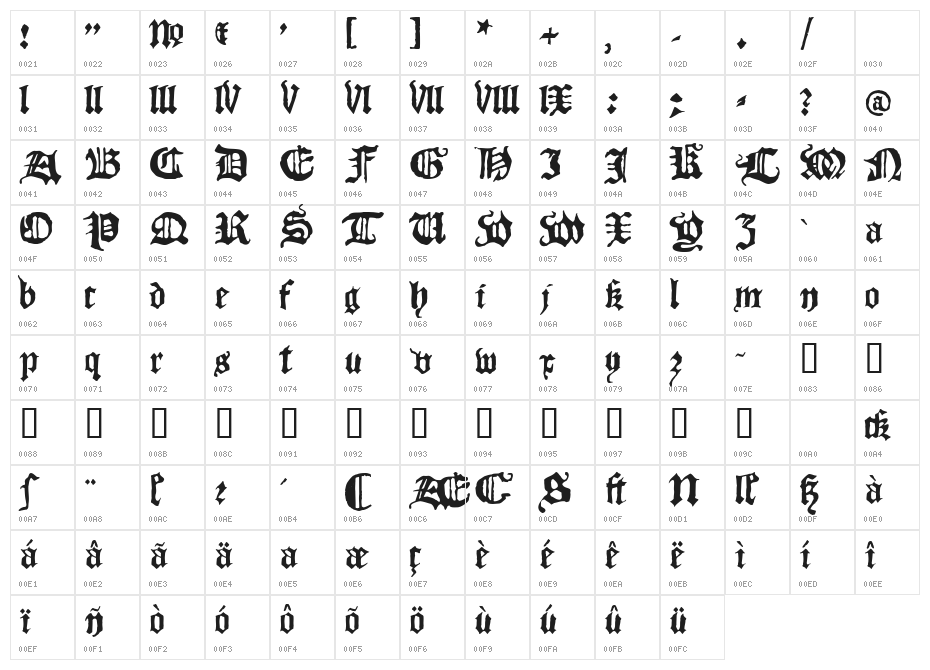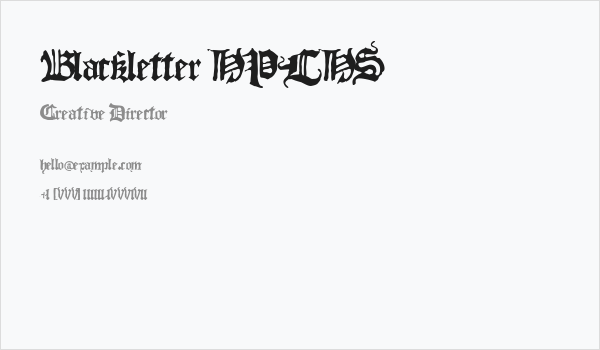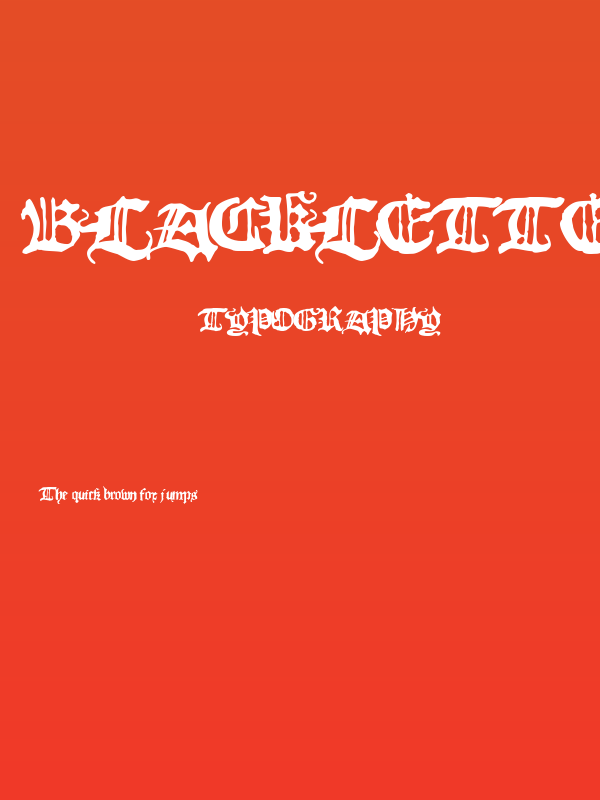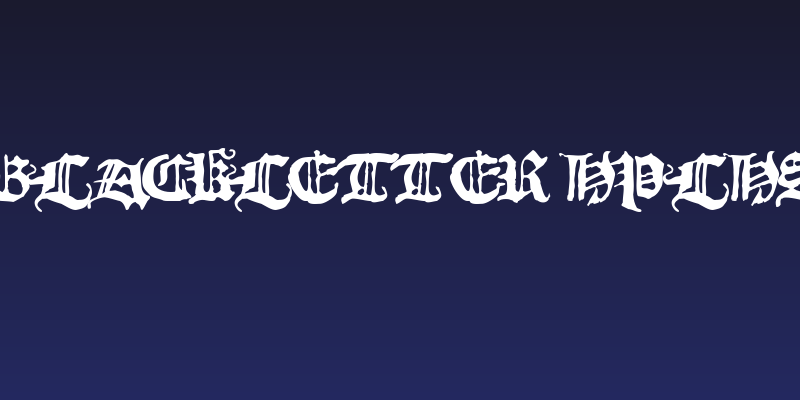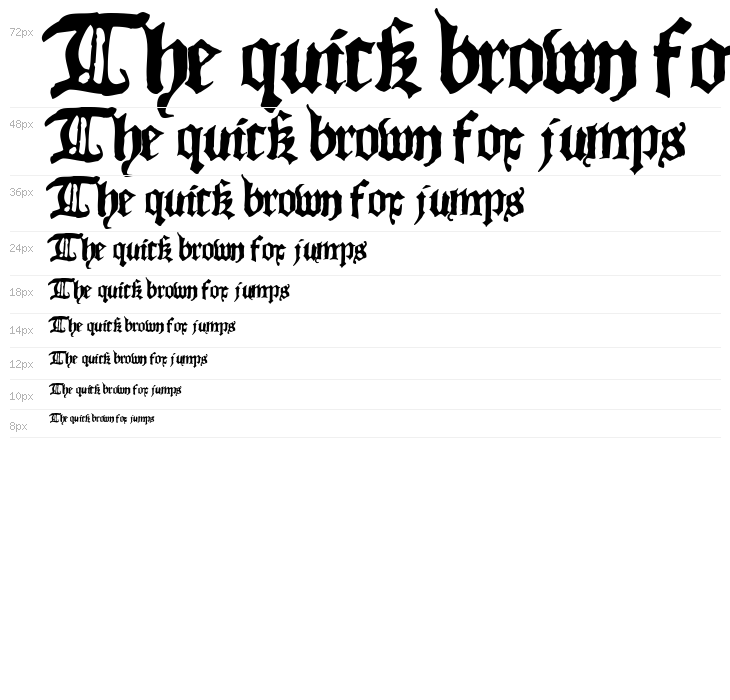
Blackletter HPLHS Font
Blackletter HPLHS Description
This font exhibits a traditional Blackletter style, characterized by its intricate and ornate letterforms. The uppercase letters feature sharp, angular lines with dramatic flourishes, while the lowercase letters maintain a consistent, bold appearance. The overall design is reminiscent of medieval manuscripts, with a strong emphasis on vertical strokes and pointed serifs. The numerals and special characters are equally elaborate, complementing the Gothic aesthetic. This font's dense and decorative nature makes it ideal for creating a historical or formal impression.
| Proposed Projects | Suitable for historical documents, wedding invitations, book covers, or any project requiring a Gothic or medieval theme. |